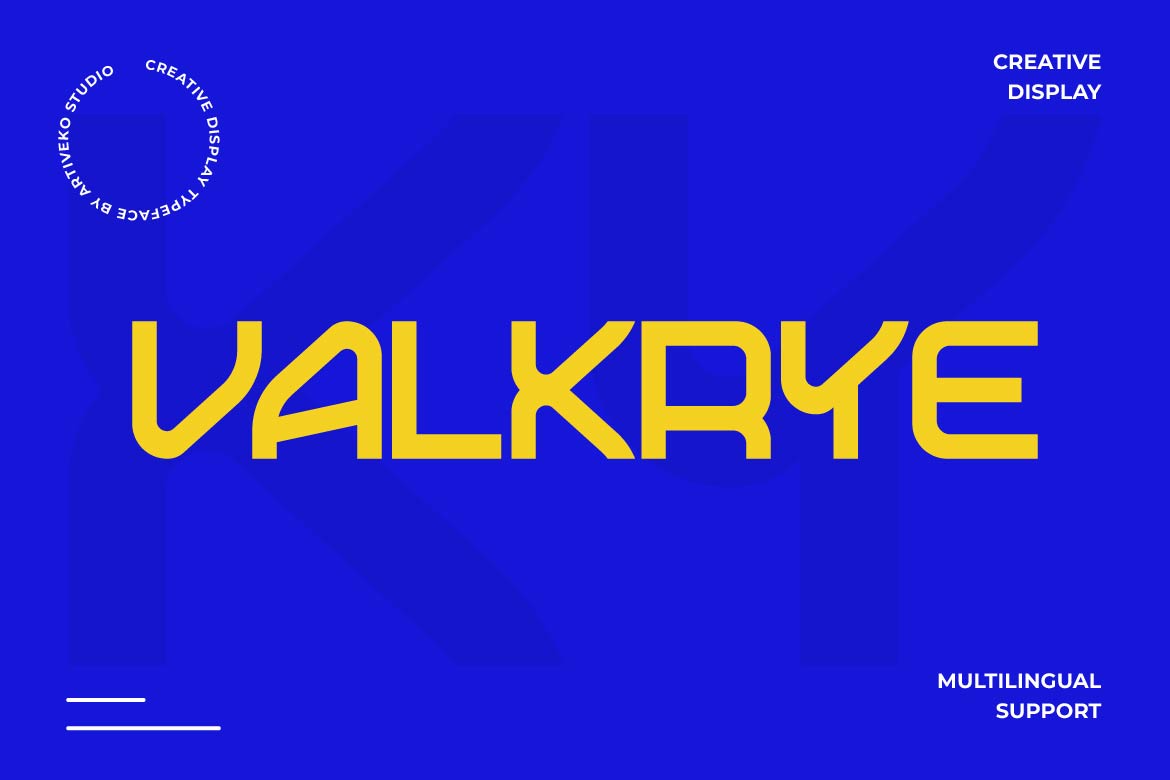
Valkyre – Sci-Fi Technology Display Font
Valkyre is a futuristic technology display font designed for projects that need a bold, geometric, and forward-thinking visual identity. Featuring sharp angular details, streamlined curves, wide proportions, and distinctive letterforms, Valkyre creates a strong digital aesthetic inspired by modern technology and science fiction.
Perfect for technology branding, gaming, esports, AI projects, software companies, digital products, sci-fi artwork, UI/UX design, posters, headlines, logo design, YouTube thumbnails, and futuristic campaigns, Valkyre is built to command attention at display sizes.
Its unique geometric construction gives ordinary words a high-tech character, making it especially effective for projects related to innovation, gaming, robotics, artificial intelligence, space, digital entertainment, and next-generation technology.
Valkyre also includes multilingual support, making it suitable for international creative projects and global brands. From a futuristic logo to a gaming title, technology campaign, or digital product interface, Valkyre brings a sharp and recognizable personality to every design.
Valkyre — futuristic typography engineered for the next generation of design.